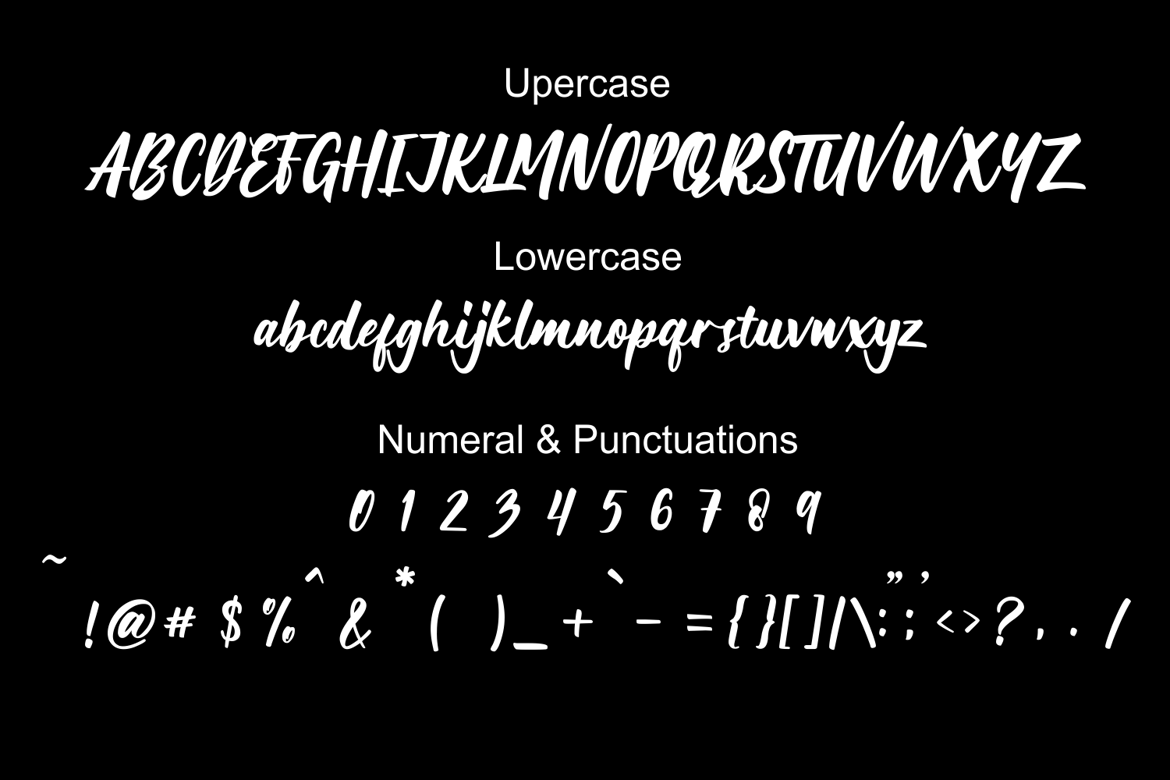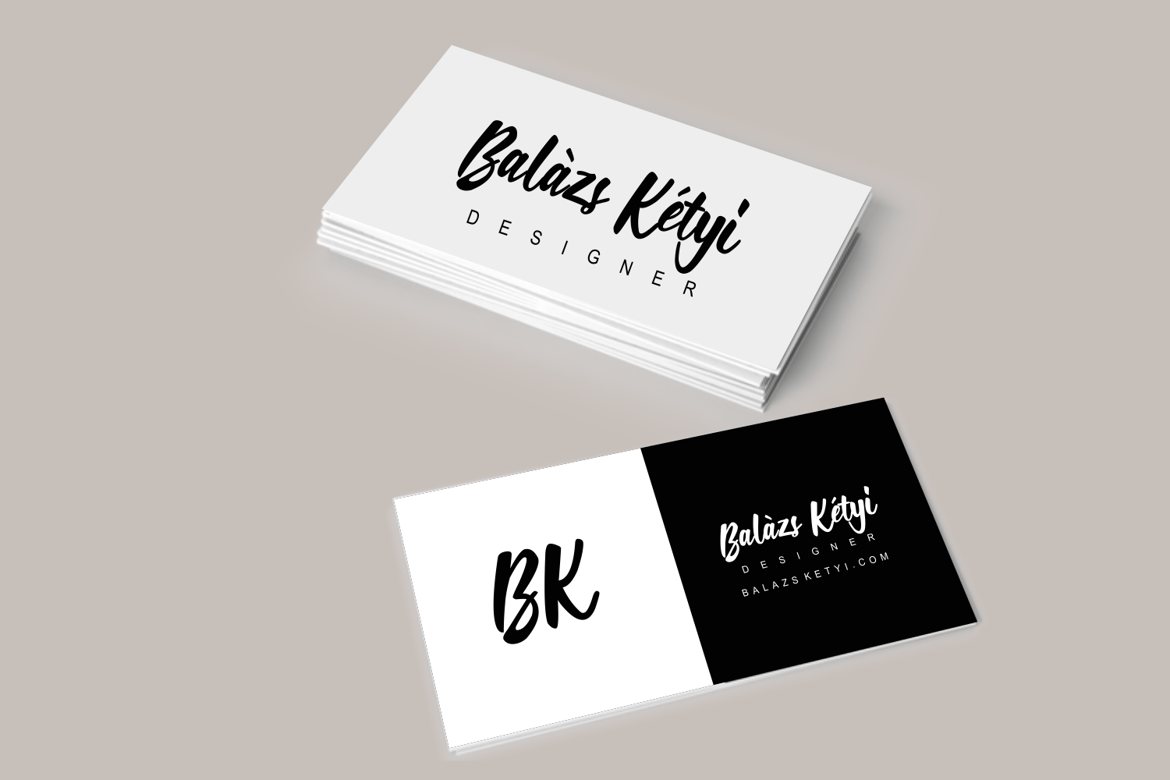
Lecheet – Handwritten Font
Lecheet is a handwritten script Typeface. It has an authentic modern calligraphy look and feels bold which makes it perfect for digital branding and design.